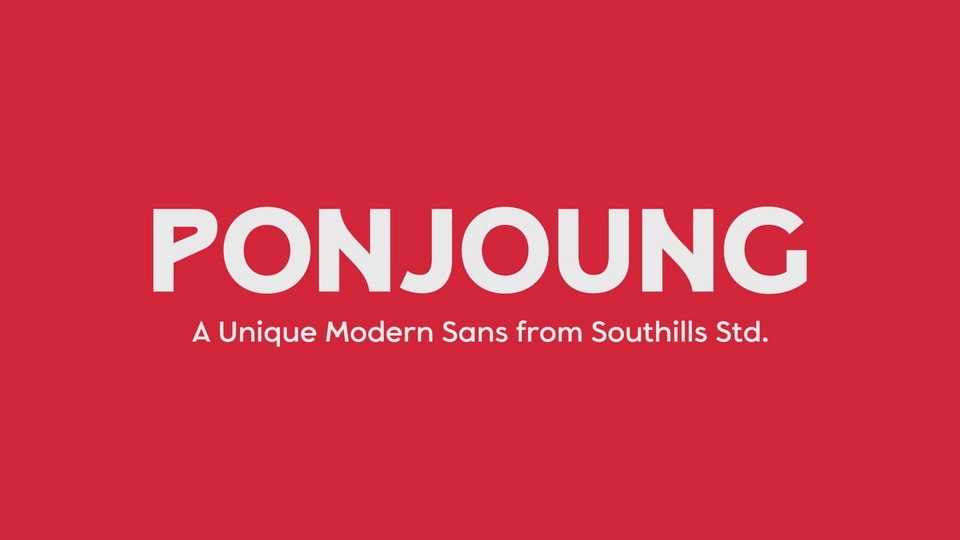
Download Ponjoung font, a contemporary sans serif typeface that boasts a modern yet playful feel. Simple geometric shapes combined with unique accents make this font very fresh and special yet suitable for any purposes.
Designer: Southills Studio